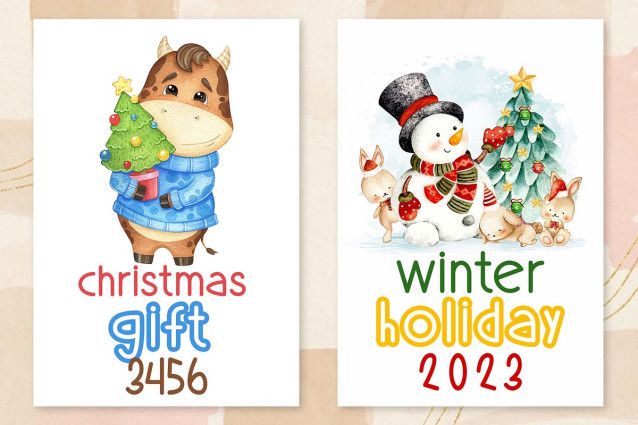
Lucky Dori Font
Lucky Dori Font is a sweet and quirky handwritten font. No matter the topic, this font will be an incredible asset to your font’s library, as it has the potential to elevate any creation. So, enjoy this font and make it the best project!